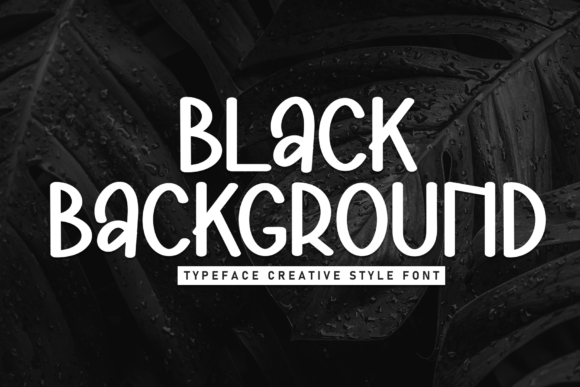
The Ultimate Guide to Black Background Font: A Designer’s Best Friend
I’ll never forget the time I was working on a branding project for a trendy coffee shop. My client wanted a bold, eye-catching font that would pop on their dark-colored packaging. After hours of scouring font websites and trying out different combinations, I stumbled upon the Black Background Font. Its unique blend of rounded characters and clean structure immediately caught my attention. I knew right then and there that it was the perfect fit for the project. In this article, I’ll share my experience with this versatile font, its features, and how to make the most of it in your designs.
An Honest Review of Black Background Font
• ✨ Unique and playful vibe: The Black Background Font has a casual, handwritten feel that adds personality to any design.
• ✅ Versatility: Despite its name, this font looks great on both dark and light backgrounds, making it perfect for a variety of projects.
• ✅ Clean structure: The font’s clean lines and rounded characters make it easy to read and understand.
• ✅ Modern and bold: The Black Background Font is perfect for creating modern branding, poster designs, merchandise, and playful headlines.
While the Black Background Font is an excellent choice for many projects, there are a few things to keep in mind:
• ⚠️ Legibility on very small sizes: Like many display fonts, the Black Background Font may not be the best choice for very small text sizes. It’s best used for headlines or titles.
• 🤔 Overuse: Because of its bold and playful nature, it’s easy to overuse this font. Make sure to balance it with other fonts or design elements.
The Story Behind Black Background Font
The Black Background Font was designed with the goal of creating a bold and creative sans-serif display font that would add personality to modern branding and design projects. Inspired by the urban landscape and modern typography, this font is perfect for designers looking for a unique and versatile font.
Q: What type of projects is the Black Background Font best suited for?
A: The Black Background Font is perfect for modern branding, poster designs, merchandise, and playful headlines.
Q: Is the Black Background Font easy to read?
A: Yes, the Black Background Font is designed to be clean and easy to read, making it perfect for body text and headings.
Q: Can I use the Black Background Font on both dark and light backgrounds?
A: Yes, the Black Background Font is versatile and looks great on both dark and light backgrounds.